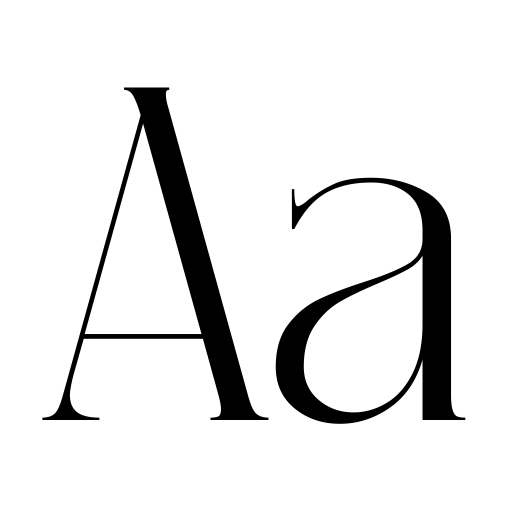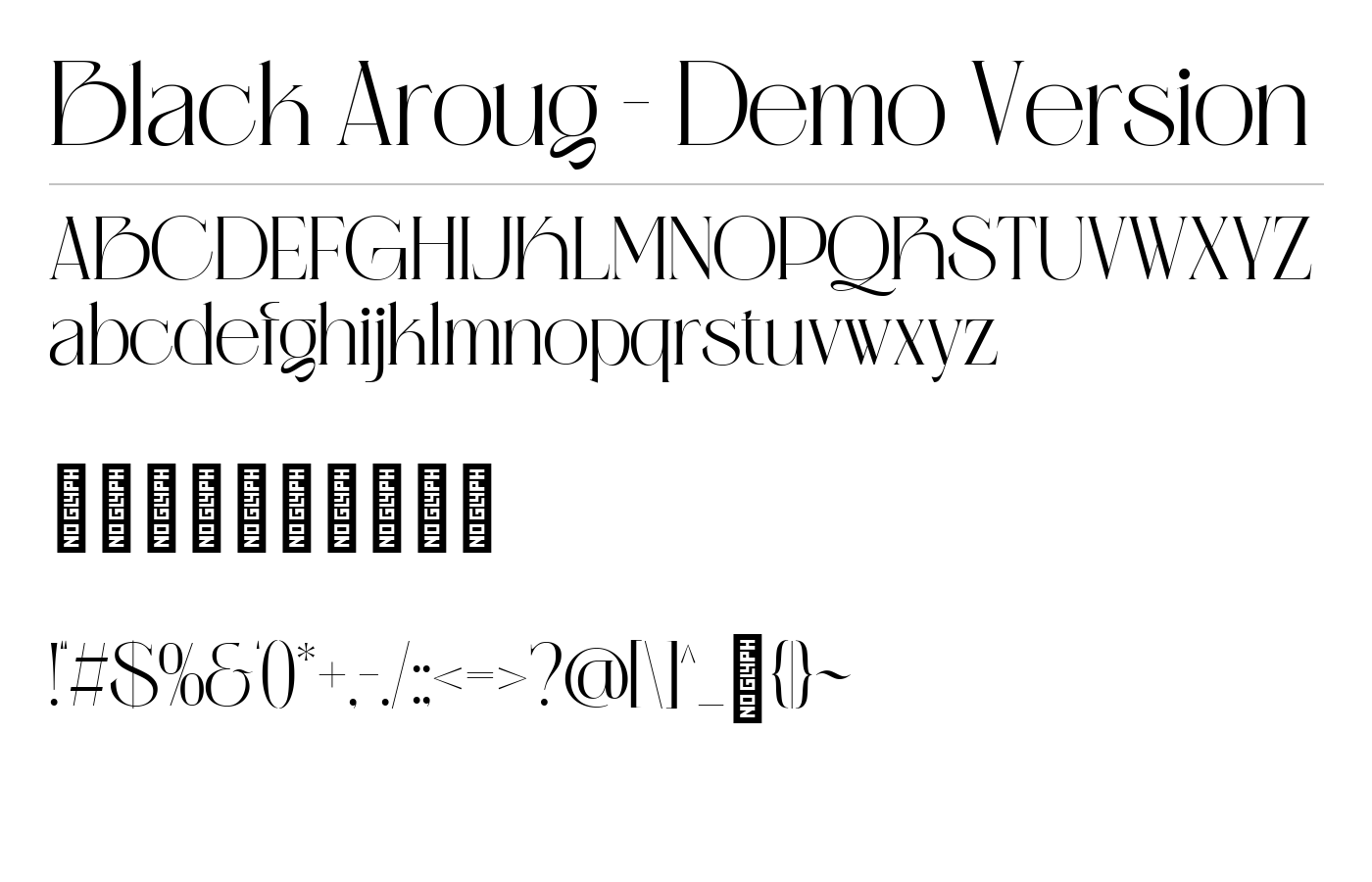
Black Aroug is an elegant serif font with a modern twist, featuring high contrast between its thin and thick strokes and delicate, bracketed serifs. Its tall, narrow letterforms, combined with unique flourishes like the stylized tail on the lowercase "g" and the intricate curves of characters like "Q" and "R," give it a refined, sophisticated personality ideal for upscale branding and editorial design. This font works particularly well for fashion or luxury projects and striking headlines where a sleek, artistic touch is desired.
Black Aroug - Demo Version Font
About Black Aroug - Demo Version Font